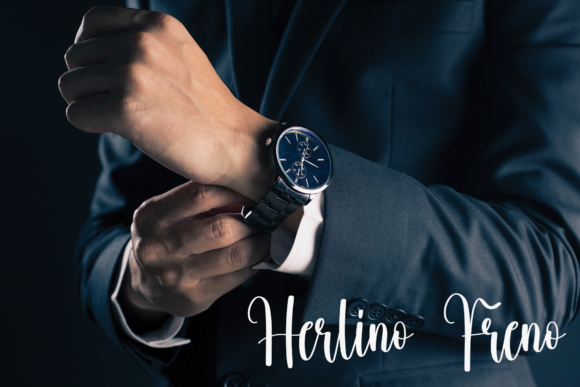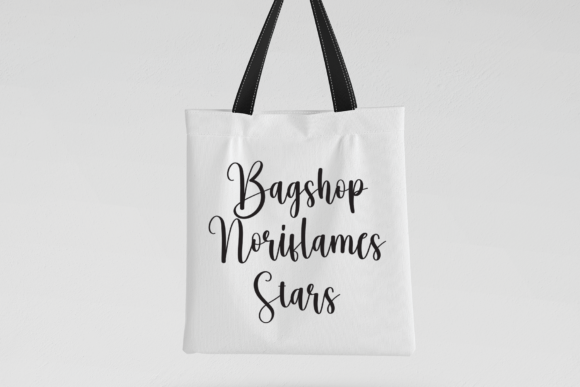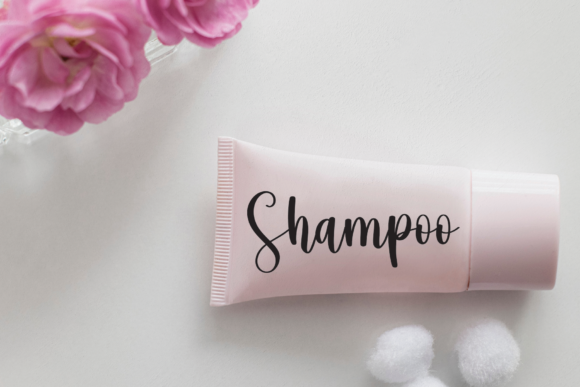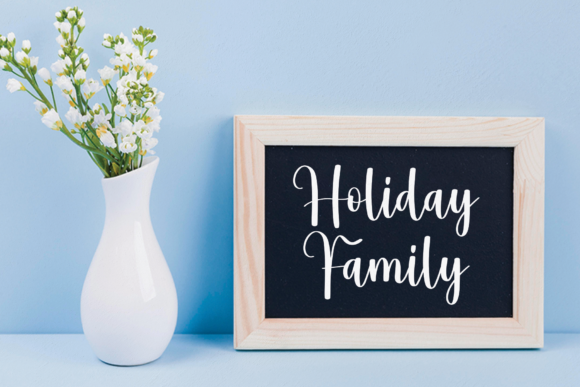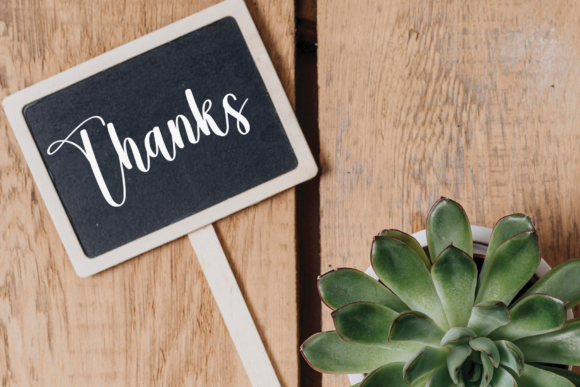
Mandala Handmade Font
About Mandala Handmade Font
Mandala Handmade is a lovely and timeless handwritten font. It is the best choice for creating eye catching logos, branding and quotes. Every letter has a unique and beautiful touch, which will make your design come alive!